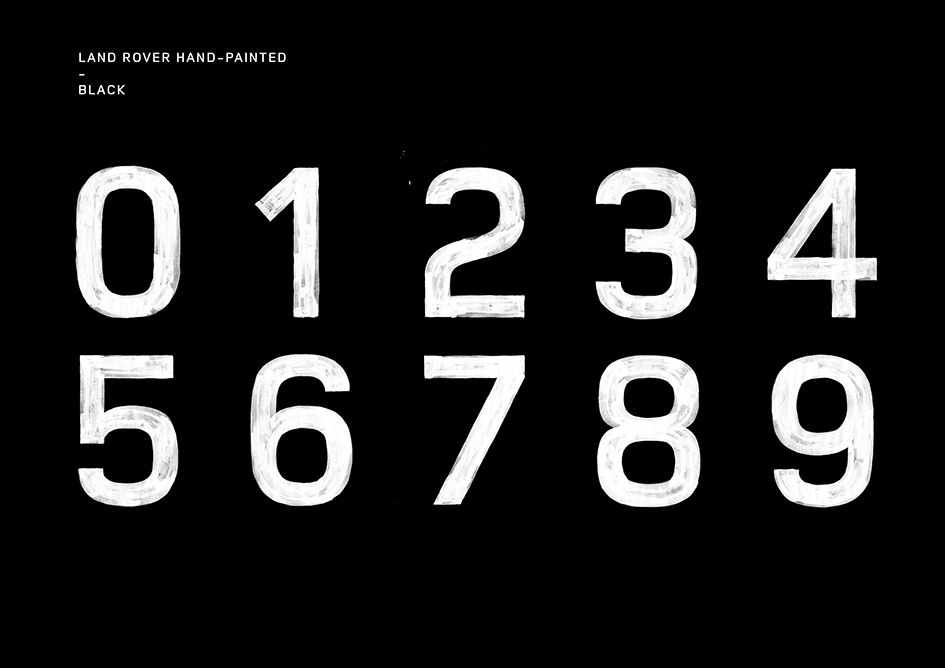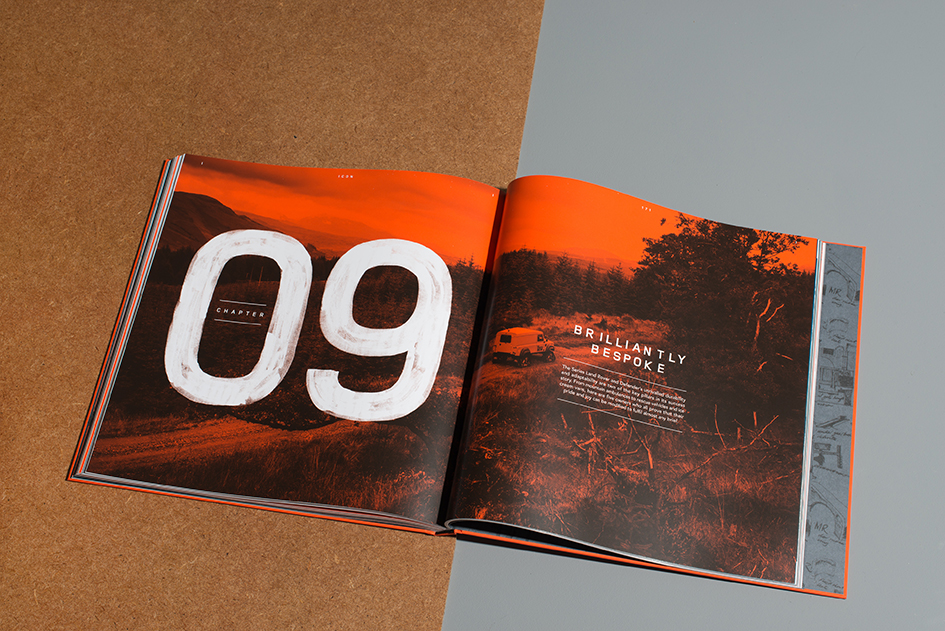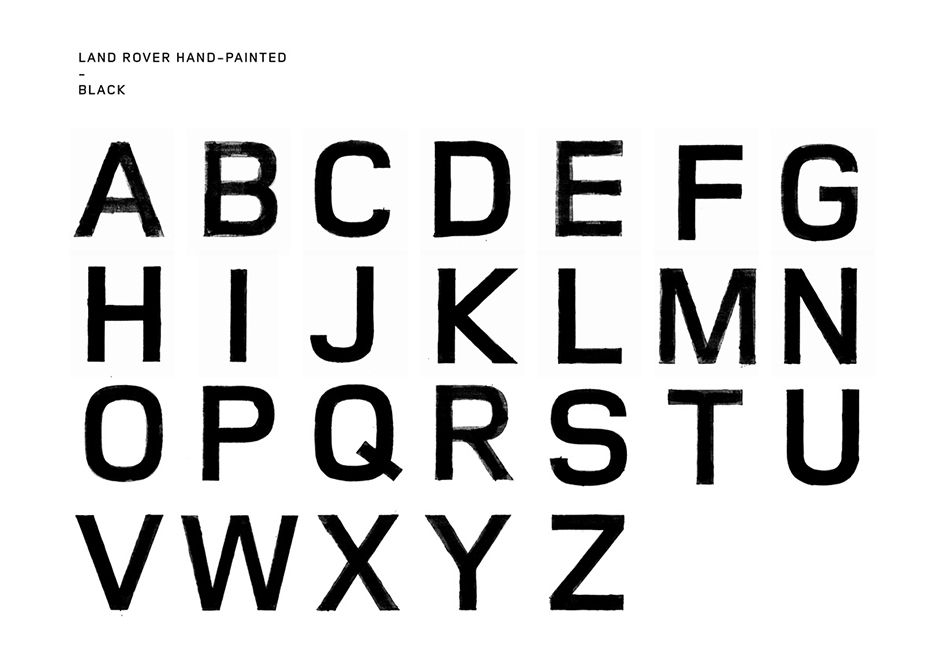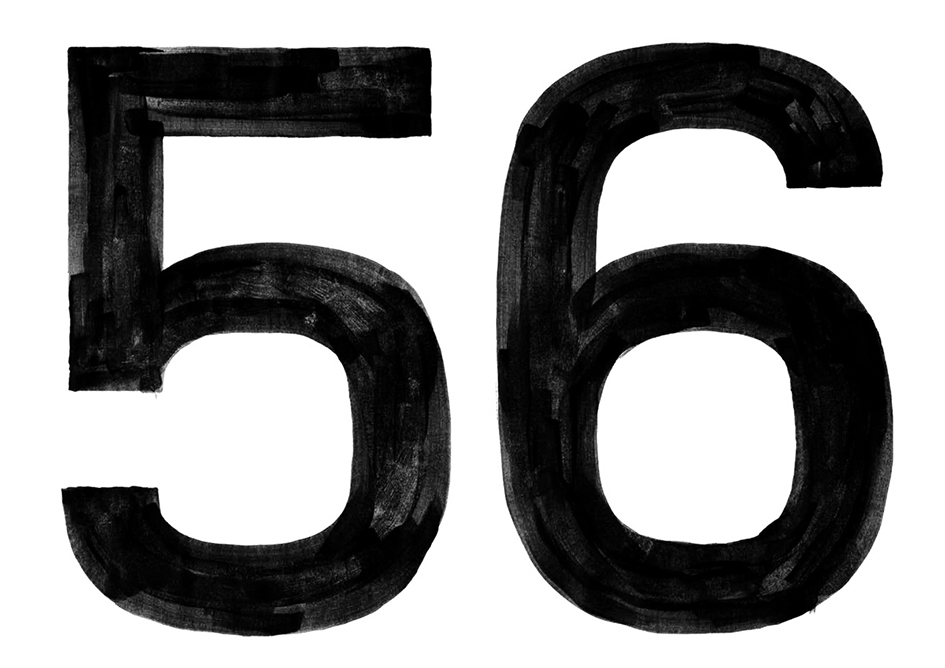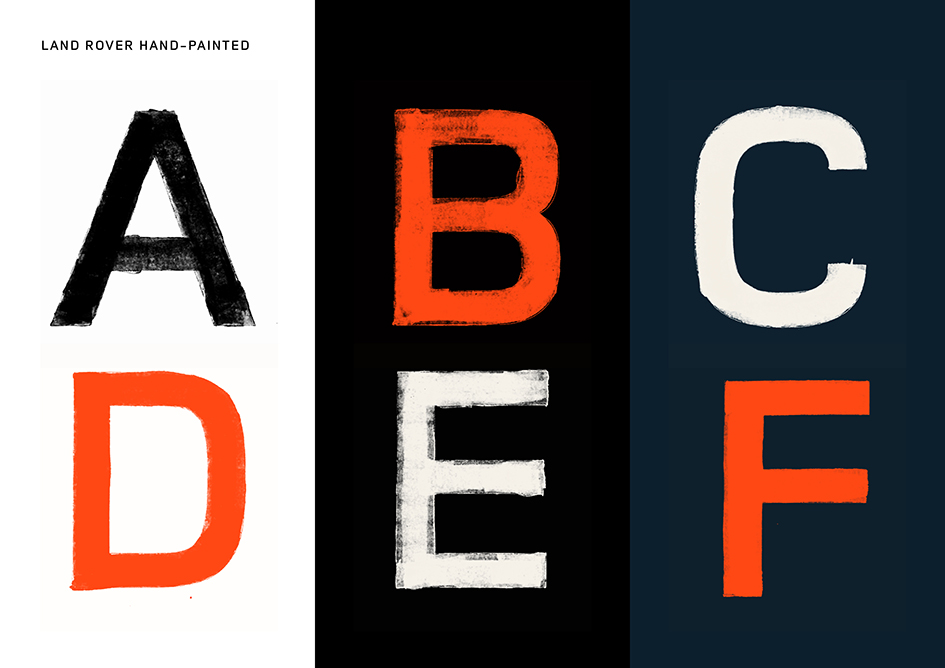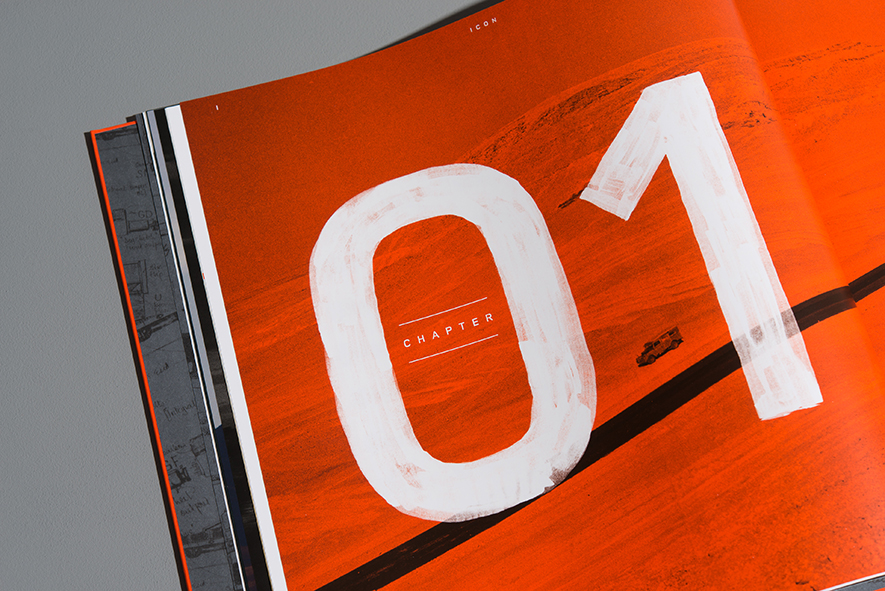
Collectable Foxtrot Papa’s book for Land Rover is an adventure to inspire
The absolute definitive official Land Rover book celebrating the life of Series and Defender models Icon is collectable. Foxtrot Papa, the content studio which creates original concepts and deliver full production and design services across film, photography and print for selected brands is responsible for the design of the publication that speaks of adventure and the wisdom that comes with it.
“The brief was clear” writes Foxtrot Papa of the book which “needs to raise brand awareness by capturing the vehicle’s (and indeed Land Rover’s) original reason for being. It must be informative, impactful and exciting, appealing to both traditionalists and new prospects. It must also whet people’s appetite for the arrival of the new Defender.”
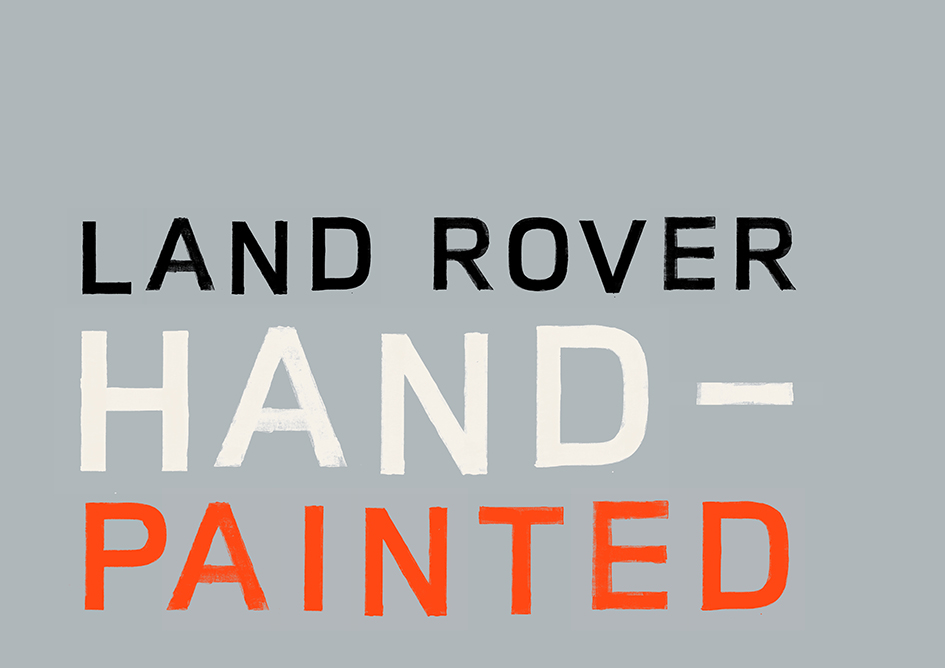
“So, it was obvious this book had to be something refreshingly different. We decided to focus on people and how the Defender touched their lives. We also wanted readers to feel a sense of the Defender itself when reading this book, so it needed to be charming, demonstrating purposeful style and design pedigree”.
“We called it ICON because, well, that’s exactly what it is. Over 204 pages we found space for a foreword written by broadcaster Richard Hammond, our own hand-painted font, 80 original photographs, bespoke illustrations, three different paper stocks and a raft of incredible stories of adventure, sacrifice and loving life with a Defender. Oh, and we ran a bright Pantone orange throughout to give it standout quality and a touch of originality”.
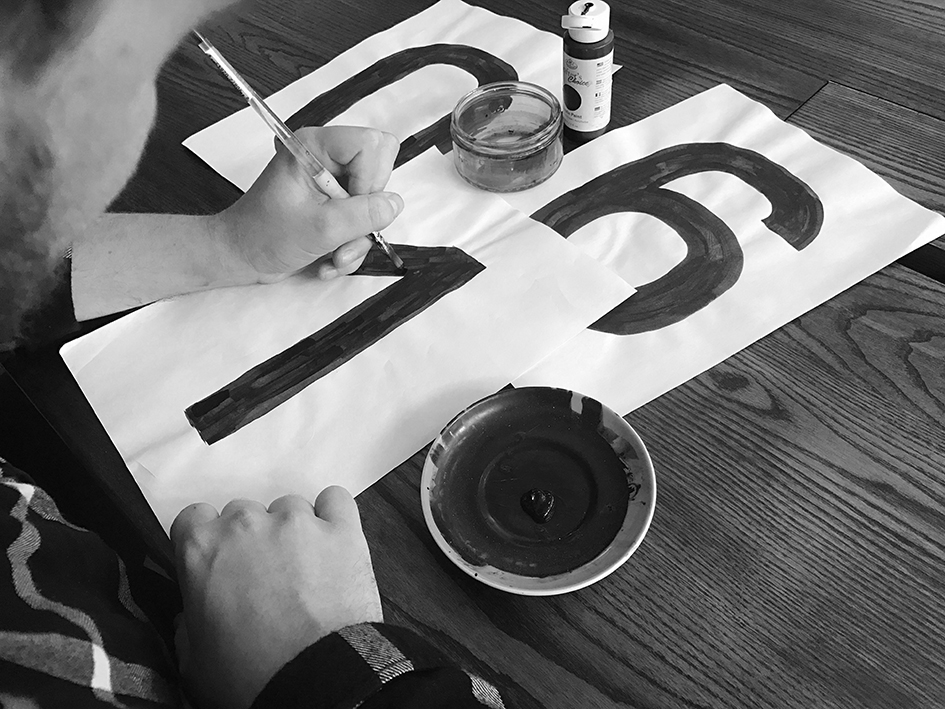
“Pre-sales of our ICON book sold out within days and, understandably, our client was delighted. ‘With ICON, Foxtrot Papa not only demonstrated their world-class publishing skills but also worked tirelessly to find the untold stories that make the legend of the Defender so strong’ said Chris Thorp, Global PR Communications at Jaguar Land Rover.
The publication which stretches over 10 chapters and more than 200 pages and captures the essence of the vehicles and the people who have loved, driven and relied upon them over the last 69 years is carefully curated and beautifully produced. The collector item features carefully chosen archive images, vivid first hand accounts and exclusive interviews with the people behind the most recognisable 4x4 on the planet, including production line employees, significant customers and company executives.